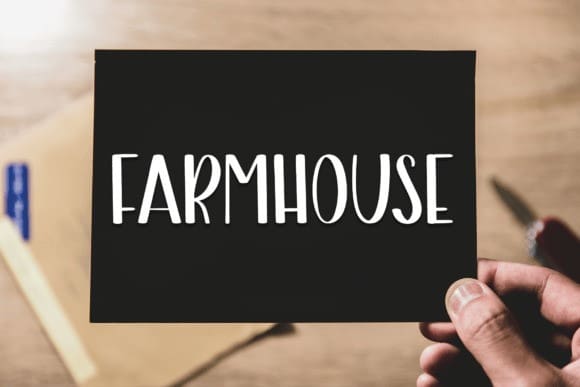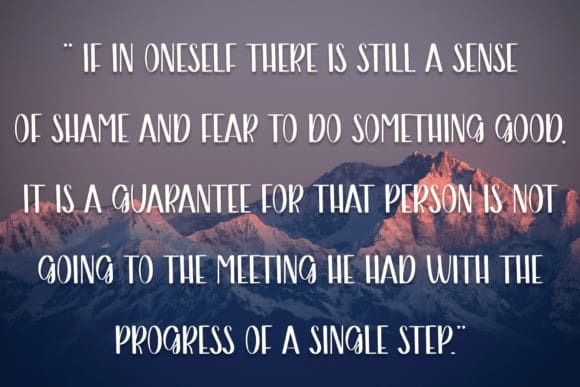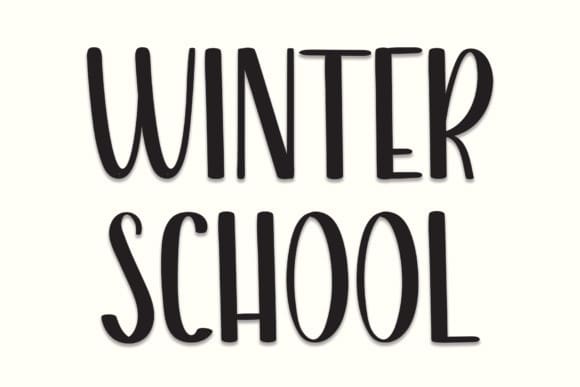
Winter School Font
Winter School Font, perfect for wall displays, wedding invitations, social media posts, logos, advertisements, product packaging, product designs, labels, photography, watermarks, invitations, stationery, and any project that requires a taste for handwriting.